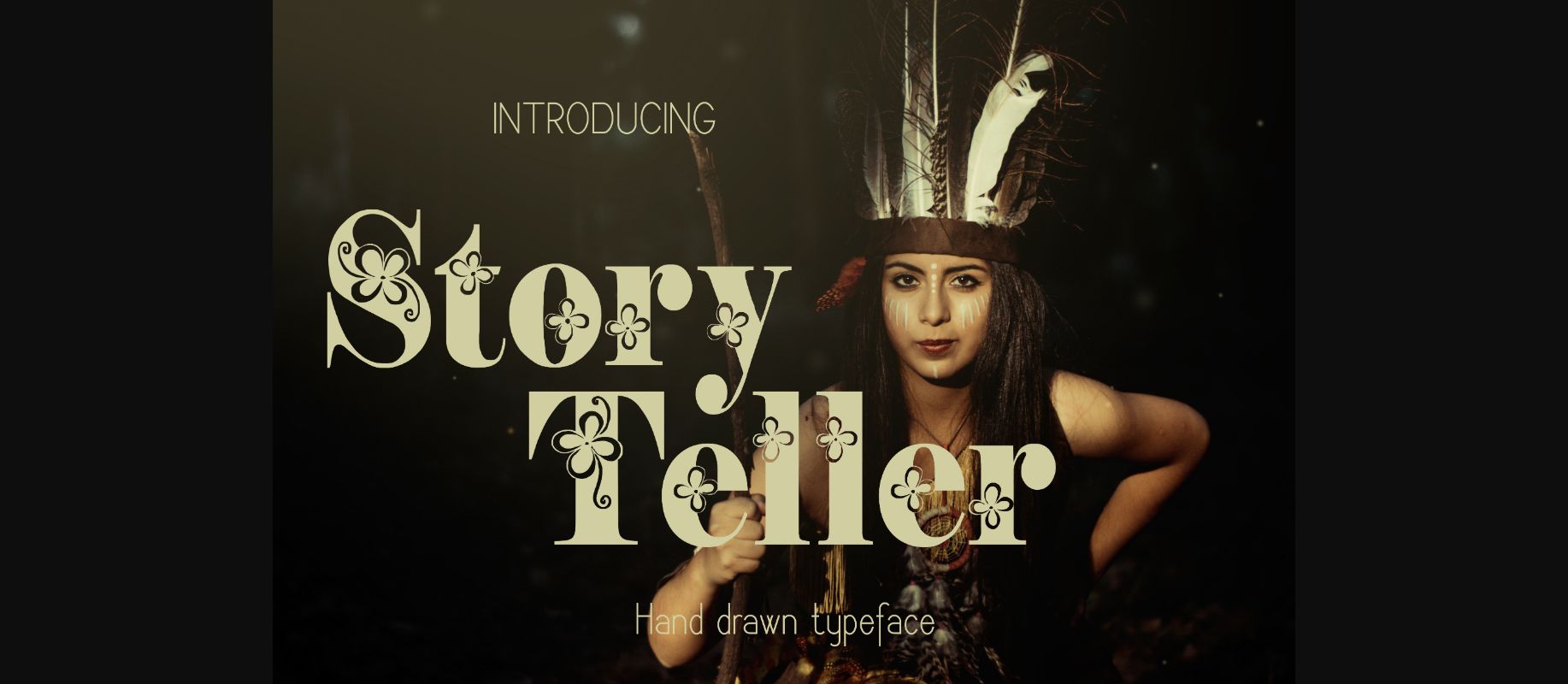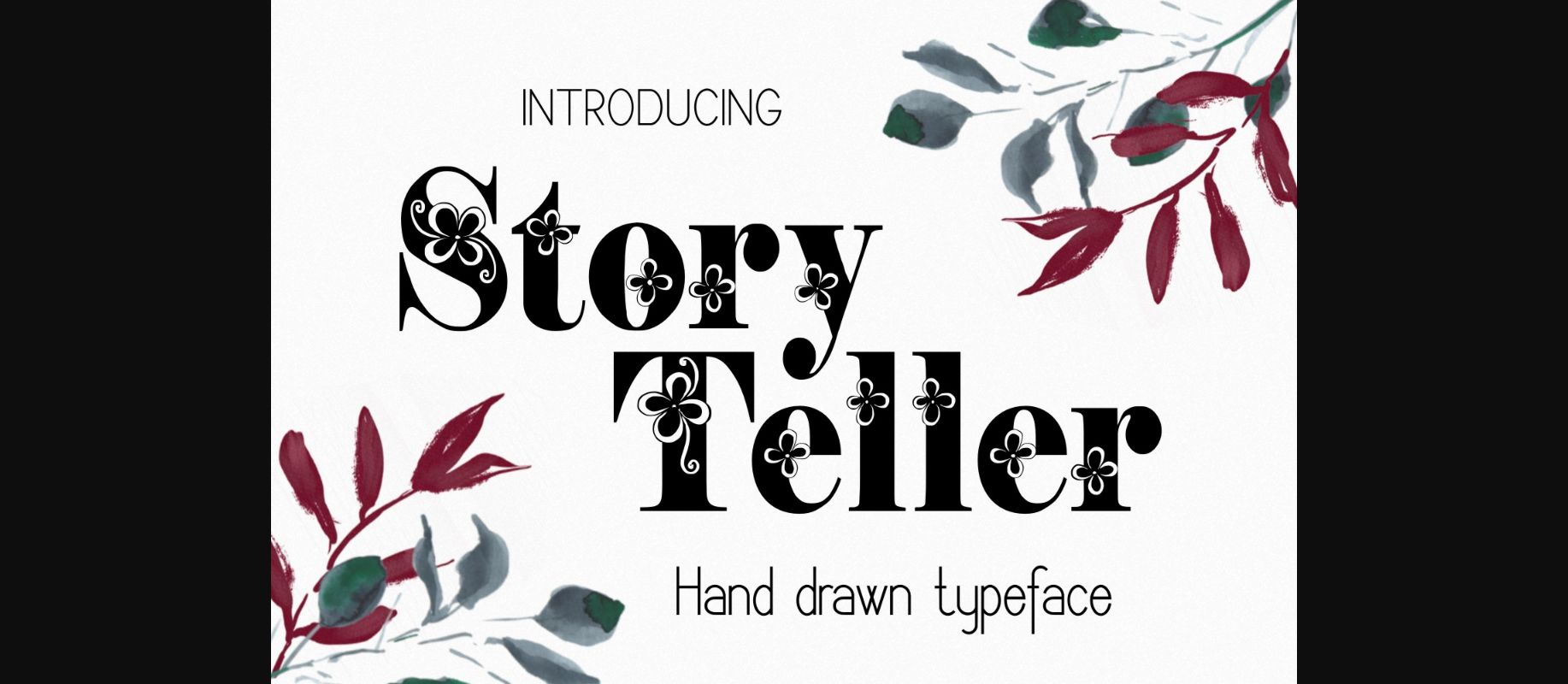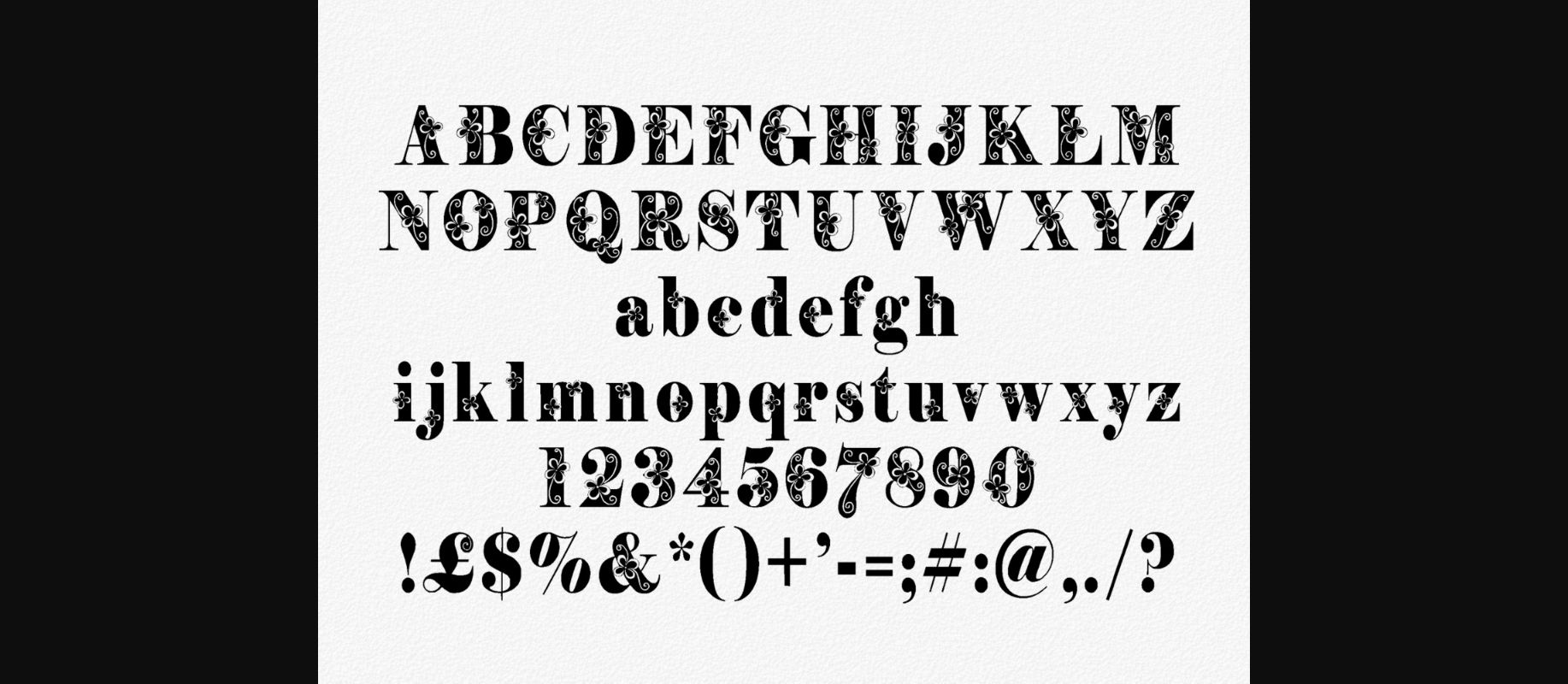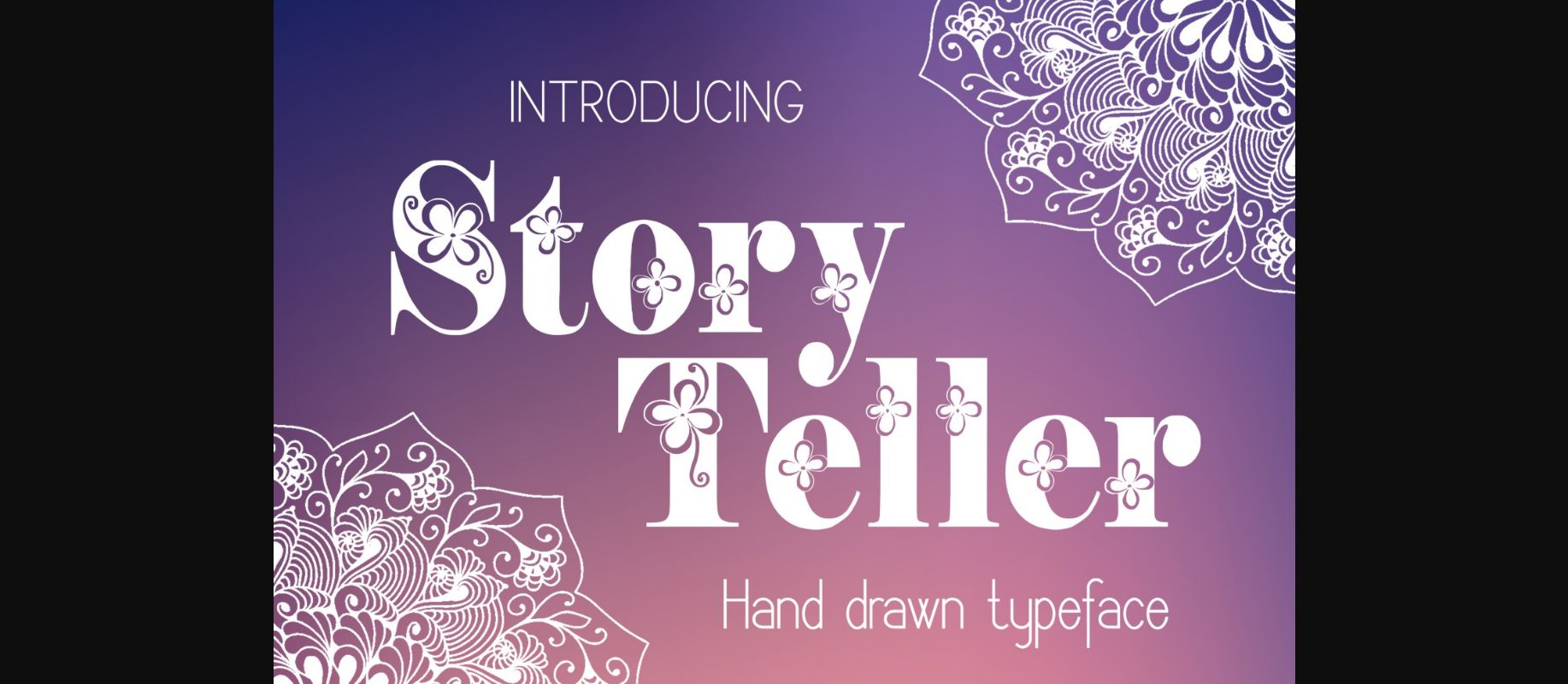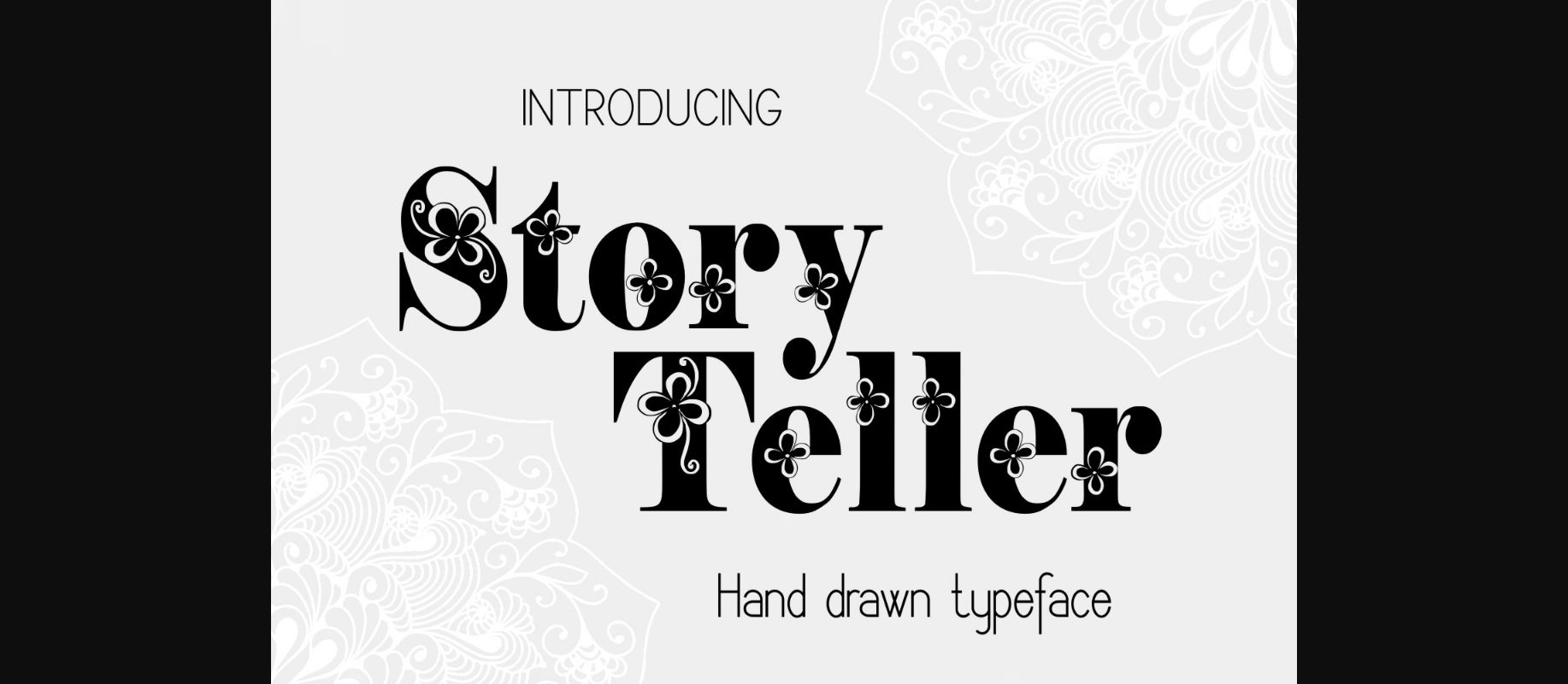
Storyteller Font
About Storyteller Font
Storyteller is hand crafted typeface. Great for titling, signage, logo, poster, flyers or t-shirts design, headlines, and more!